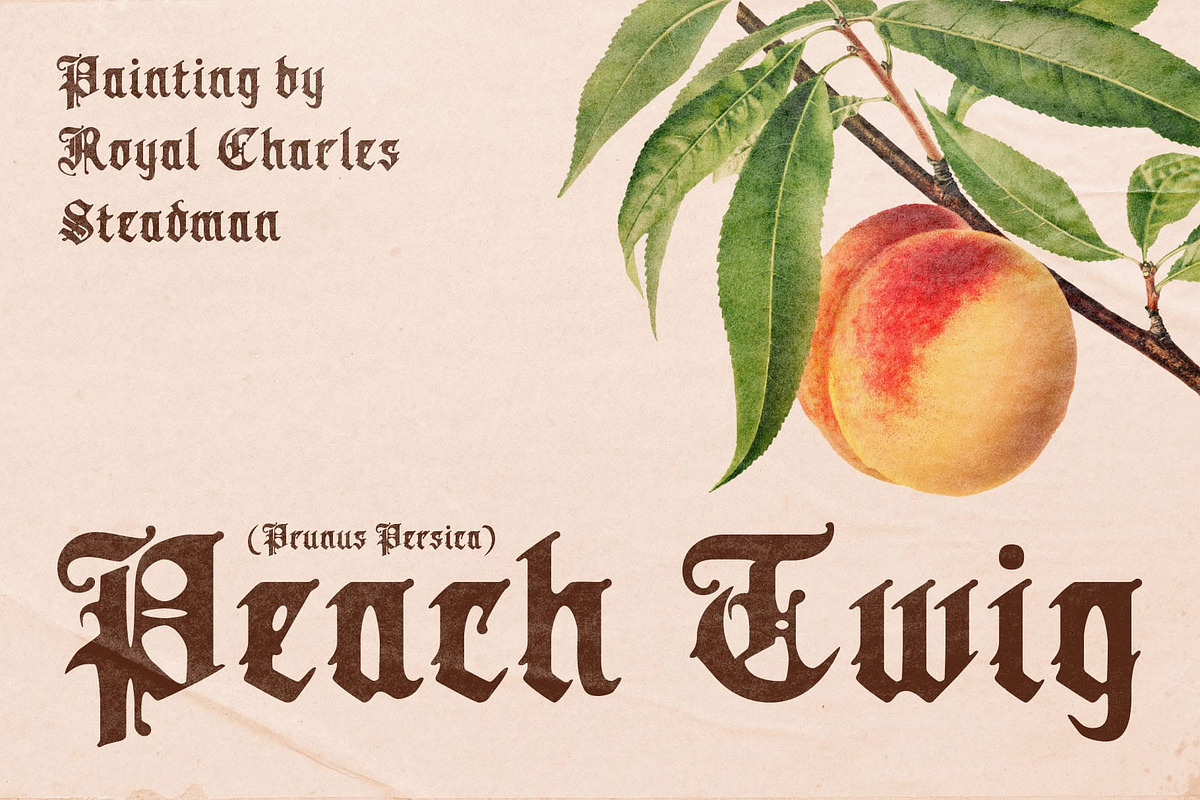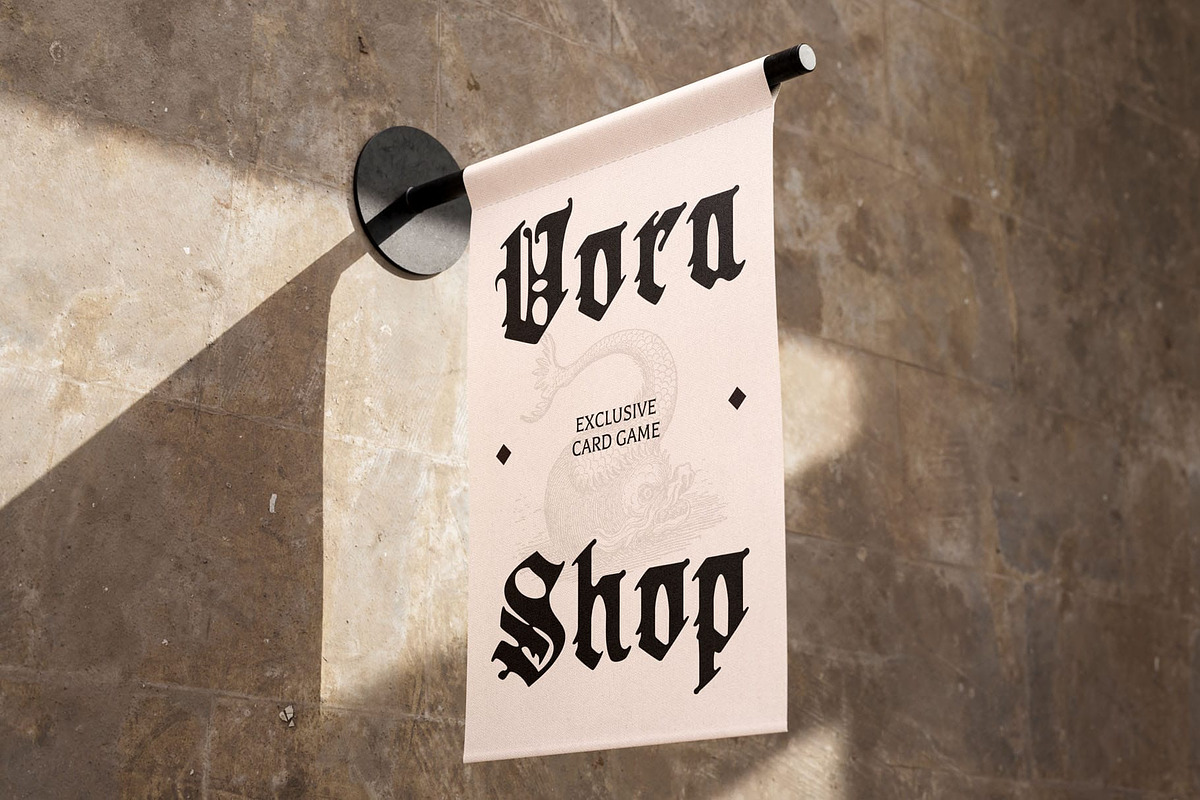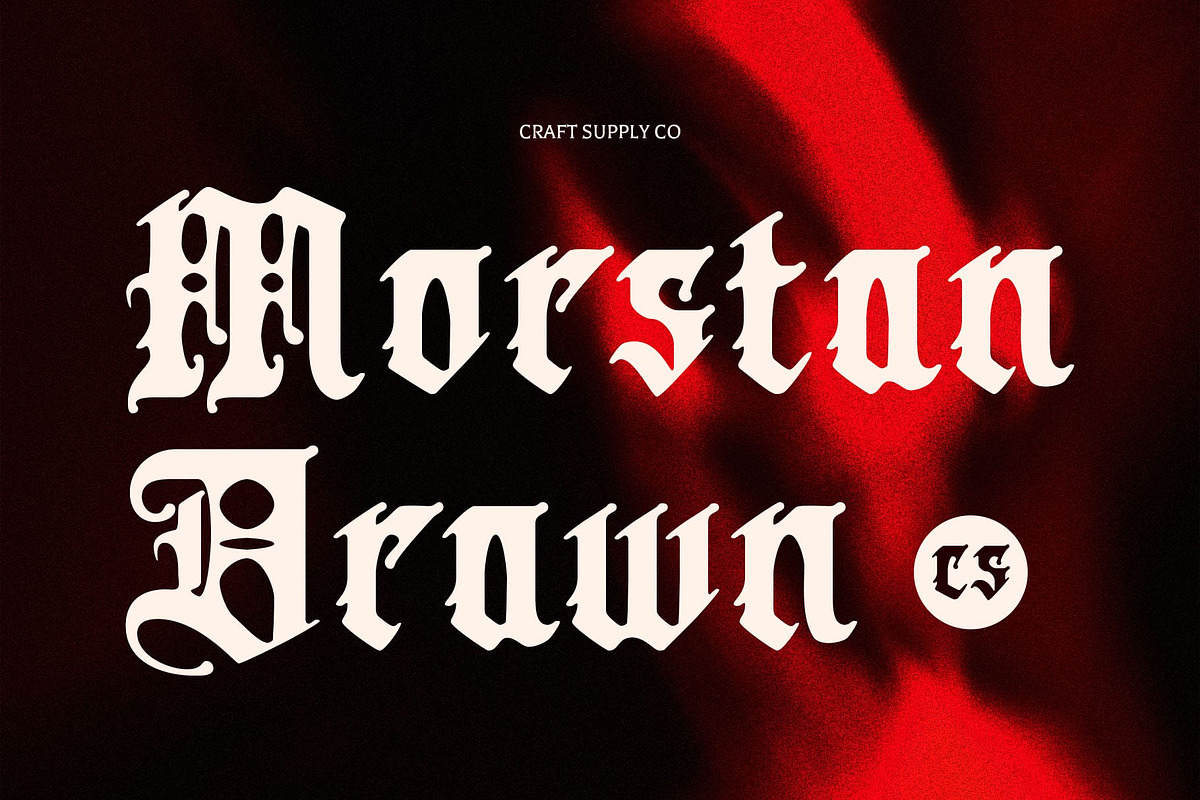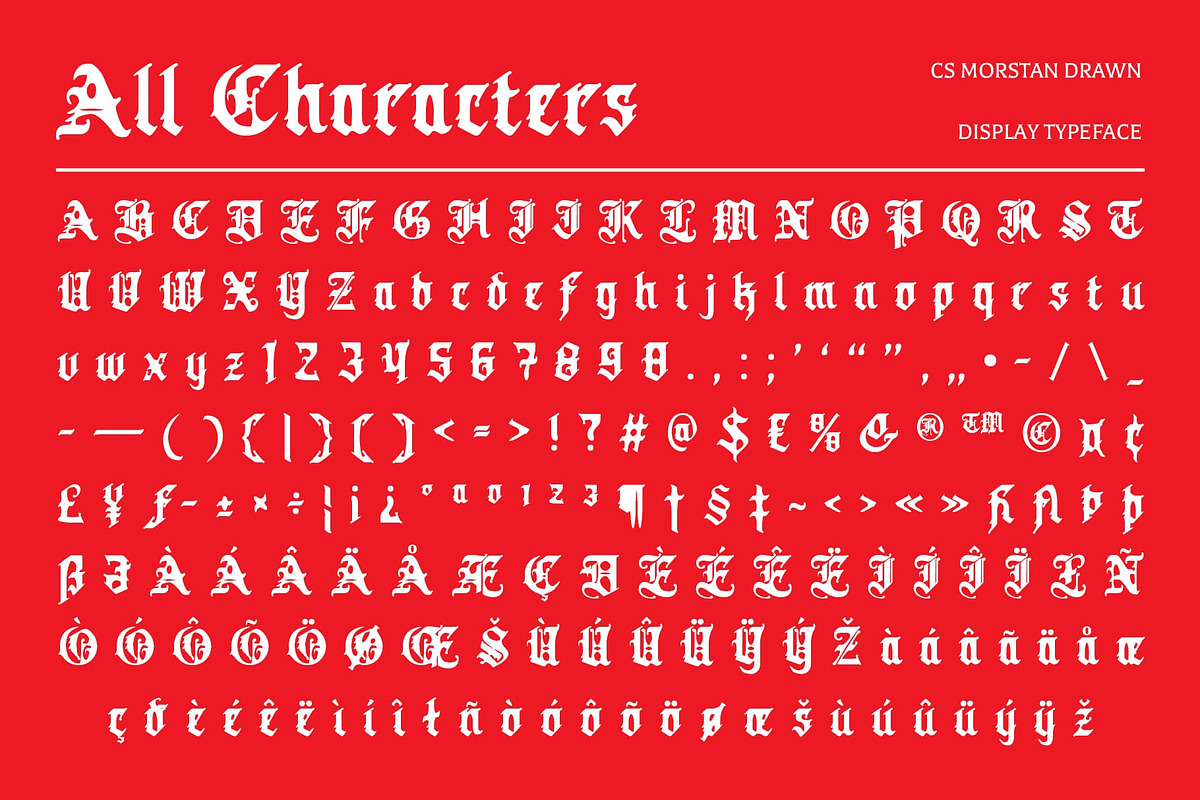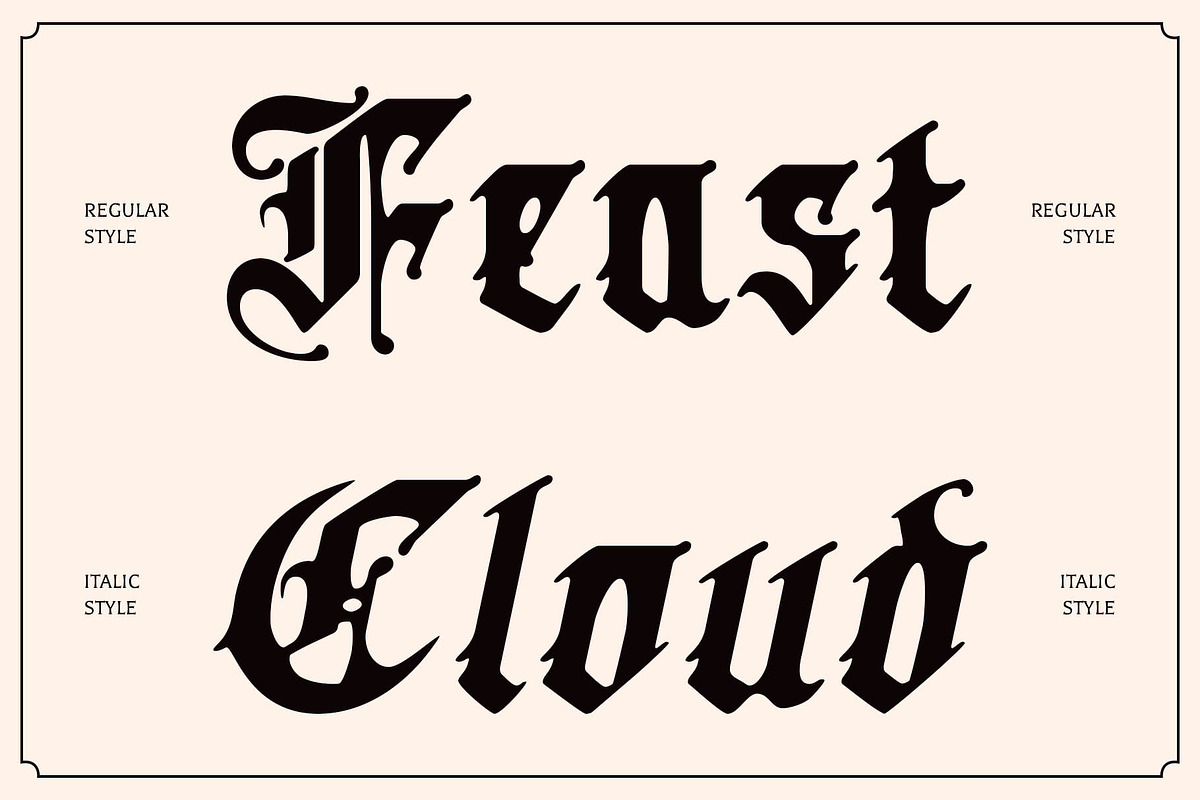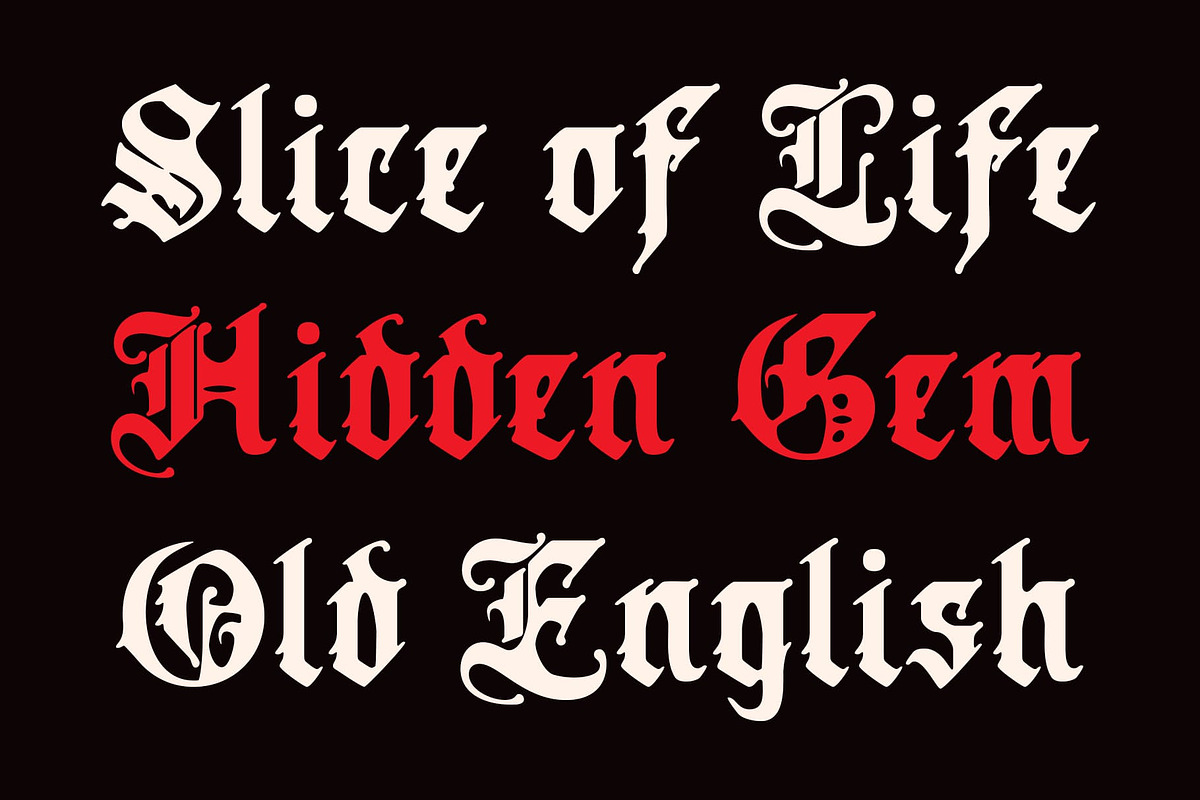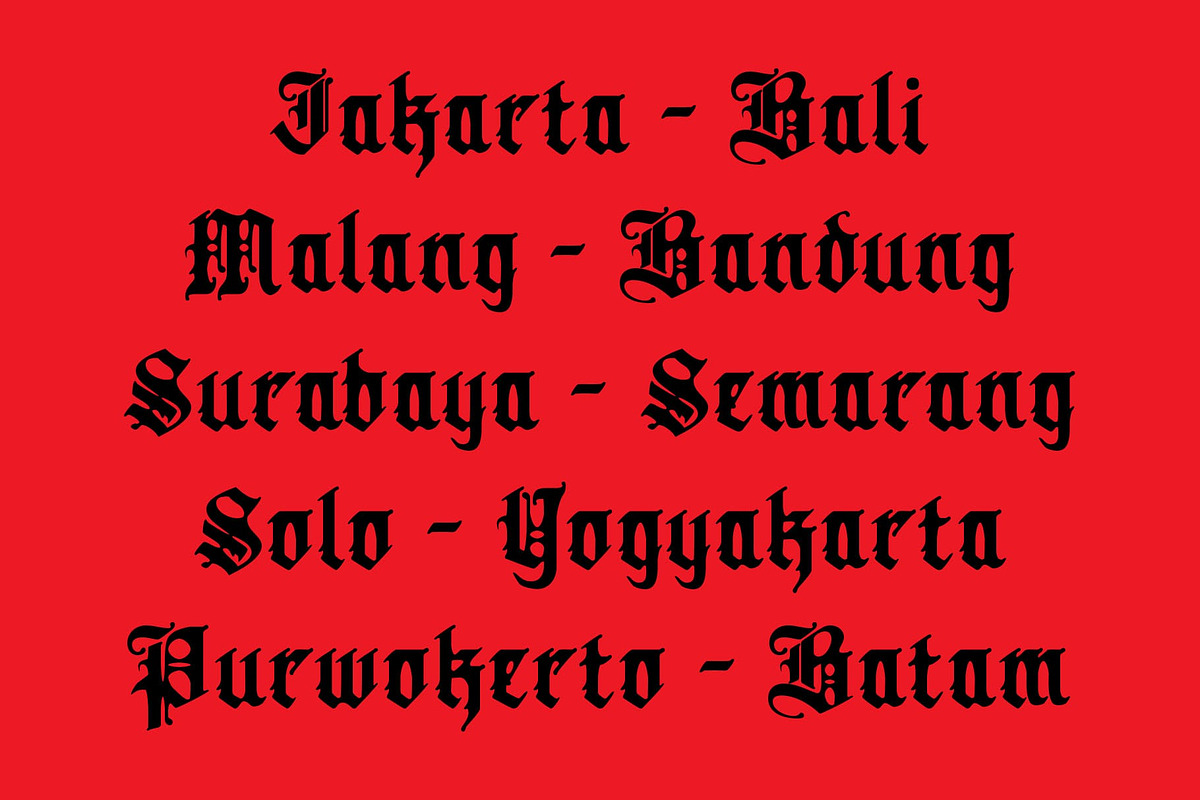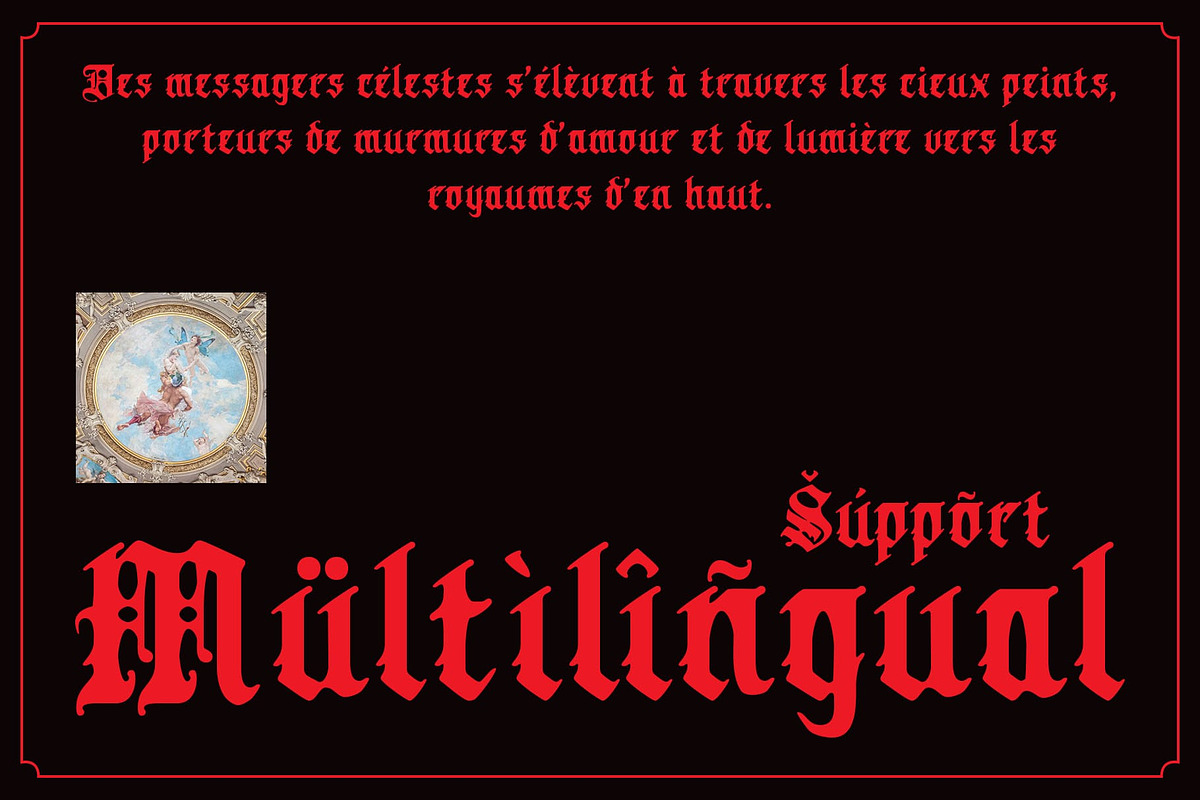
CS Morstan Drawn
CS Morstan Drawn – Classic Old English Display with Handmade Charm
Bold, Ornamental Letterforms This font showcases a classic Old English style with bold, decorative letters. Its intricate shapes and flourishes create a striking visual presence, perfect for designs that demand attention and convey traditional sophistication.
Handmade Drawn Texture Enhanced with a drawn effect, this display font brings a handcrafted, textured quality to each character. The subtle imperfections and artistic strokes add personality and depth, making your typography feel alive and uniquely expressive.
Traditional Meets Artistic Striking a balance between historical elegance and creative flair, this traditional and historic font is ideal for projects that aim to evoke mystery, tradition, and artistry. Its ornamental details combine with the drawn texture to create a distinctive and memorable style.
Versatile Display Applications Perfect for titles, posters, branding, or any creative project, this mystical and dramatic font adapts beautifully to multiple contexts. Its bold, decorative nature ensures visibility, while the handmade texture adds a layer of sophistication and intrigue.
Mysterious and Elegant Presence With its detailed letterforms and subtle handcrafted nuances, this decorative and ornamental font radiates both elegance and a sense of mystique. It transforms any design into a statement piece, offering a timeless yet artistic aesthetic that captures attention and imagination.